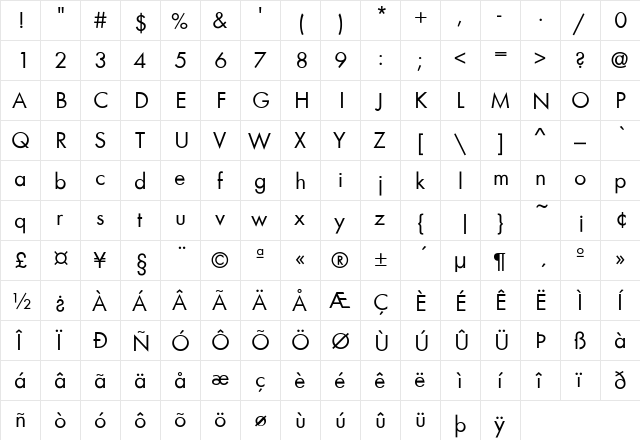
Fusion-Normal Regular
Design Context for Fusion-Normal Typeface
Fusion-Normal is a composed and adaptable typeface that performs quietly and consistently across a wide range of design contexts.